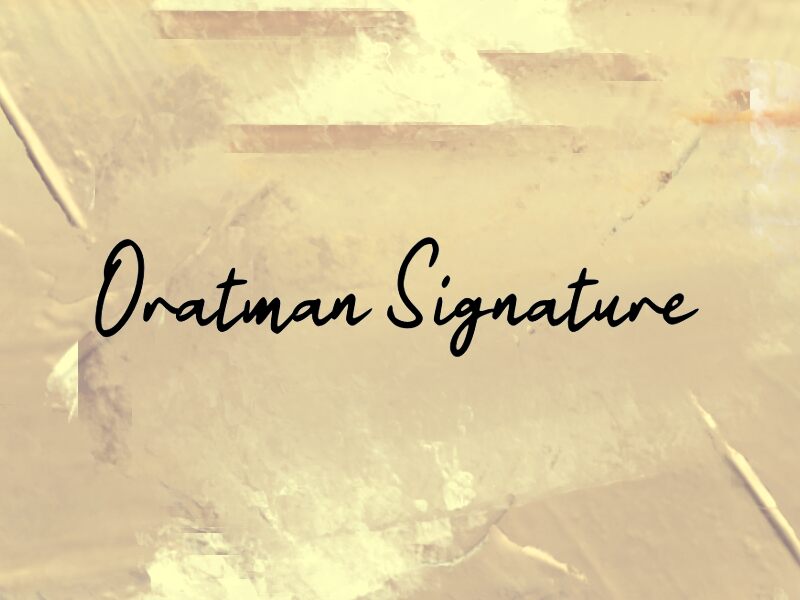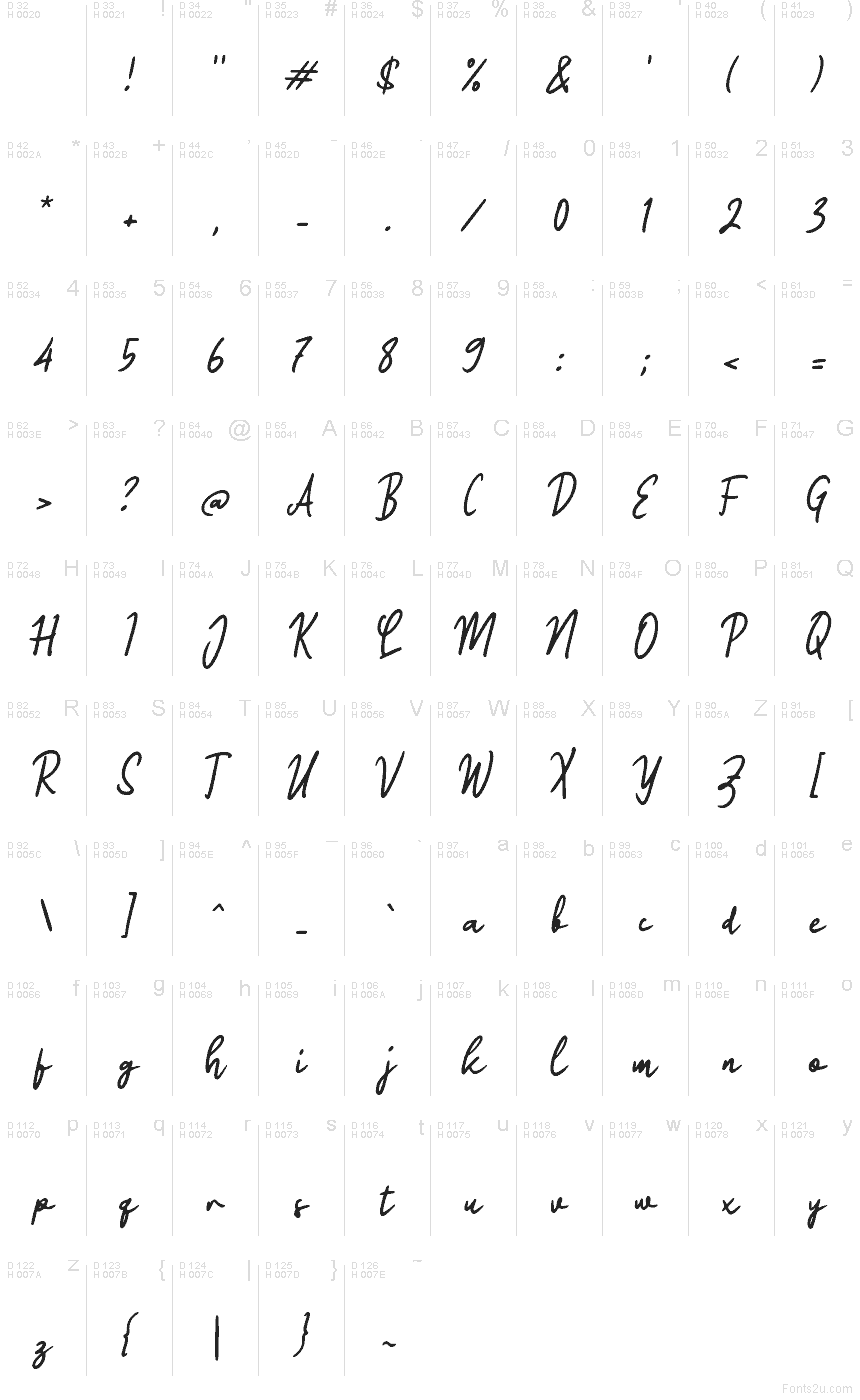
Oratman Signature
Oratman Signature font by wep is a free handwritten signature typeface with a smooth, inky flow that feels like it was dashed off with a favorite gel pen. The letters lean and loop with just enough irregularity to feel personal, while staying tidy and legible for real-world branding. Slight texture in the strokes gives it a warm, organic edge that reads as human, not scripted by software.
Using Oratman Signature, you can give logos, business cards, packaging, social media graphics, nameplates, and watermark signatures a refined but approachable voice. This free font works beautifully as a bold name or headline paired with a clean sans serif in smaller text. Set it a little larger than your supporting type to let the fluid curves breathe and keep that handwritten character front and center.